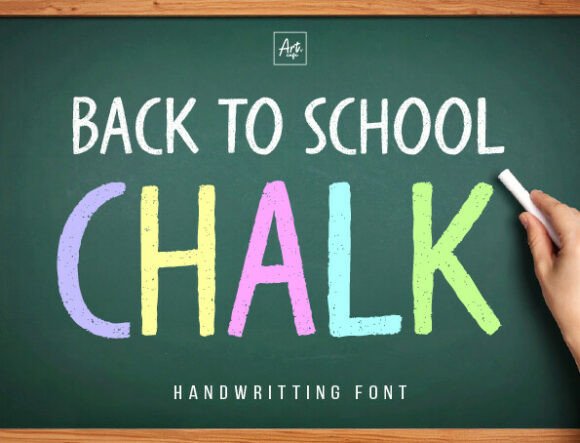
Introducing Back to School Chalk Font: The Perfect Addition to Your Educational Designs
As the new school year approaches, teachers, educators, and designers are on the lookout for the perfect fonts to make their back-to-school materials stand out. If you’re looking for a font that embodies the nostalgia and playfulness of chalkboard writing, look no further than the Back to School Chalk Font. This delightful handwriting font is designed to capture the essence of traditional chalkboard writing, making it an ideal choice for school-themed designs, teacher resources, educational printables, kids’ projects, and more.
The Charm of Chalkboard Writing
There’s something undeniably charming about chalkboard writing. The textured, hand-drawn look of chalk on a blackboard evokes memories of classrooms past and adds a touch of warmth and personality to any design. The Back to School Chalk Font perfectly replicates this look, giving your designs a natural, organic feel that’s sure to delight.
With its unique, hand-drawn texture, this font is the perfect way to add a personal touch to your educational materials. Whether you’re creating worksheets, posters, or presentations, the Back to School Chalk Font is sure to make your designs feel more approachable and engaging.
A Font that’s Perfect for Education
The Back to School Chalk Font is specifically designed with education in mind. Its playful, cheerful vibe makes it perfect for creating a wide range of educational materials, from back-to-school themed decorations to teacher resources and kids’ projects.
Some of the key features of this font include:
- A natural, hand-drawn look that perfectly captures the charm of chalkboard writing
- A textured chalk style that adds a touch of warmth and personality to any design
- A playful, cheerful vibe that’s perfect for educational materials
- A wide range of uses, from school-themed designs to teacher resources and kids’ projects
Uses for the Back to School Chalk Font
The Back to School Chalk Font is incredibly versatile, making it perfect for a wide range of educational applications. Here are just a few ideas to get you started:
- School-themed designs: Use the Back to School Chalk Font to create eye-catching posters, banners, and decorations for your school or classroom.
- Teacher resources: Add a personal touch to your teacher resources, such as worksheets, lesson plans, and activity sheets.
- Educational printables: Create engaging educational printables, such as alphabet charts, number lines, and shape posters.
- Kids’ projects: Use the Back to School Chalk Font to add a fun and playful touch to kids’ projects, such as certificates, awards, and activity sheets.
The Benefits of Using the Back to School Chalk Font
There are many benefits to using the Back to School Chalk Font in your educational designs. Here are just a few:
- Easy to read: The Back to School Chalk Font is clear and easy to read, making it perfect for educational materials.
- Highly versatile: This font can be used for a wide range of educational applications, from school-themed designs to teacher resources and kids’ projects.
- Unique and engaging: The textured chalk style of this font adds a unique and engaging touch to any design.
- Nostalgic feel: The Back to School Chalk Font perfectly captures the nostalgia of chalkboard writing, making it a great choice for educational materials.
- Choose the right size: Experiment with different font sizes to find the perfect size for your design.
- Pair with other fonts: Pair the Back to School Chalk Font with other fonts to create a unique and engaging design.
- Add texture and graphics: Add texture and graphics to your design to enhance the overall look and feel.
- Experiment with colors: Experiment with different colors to find the perfect combination for your design.
The Back to School Chalk Font is a fun and playful handwriting font that’s perfect for educational designs. With its natural, hand-drawn look and textured chalk style, this font is sure to add a touch of warmth and personality to any design. Whether you’re creating school-themed designs, teacher resources, educational printables, or kids’ projects, the Back to School Chalk Font is the perfect choice.